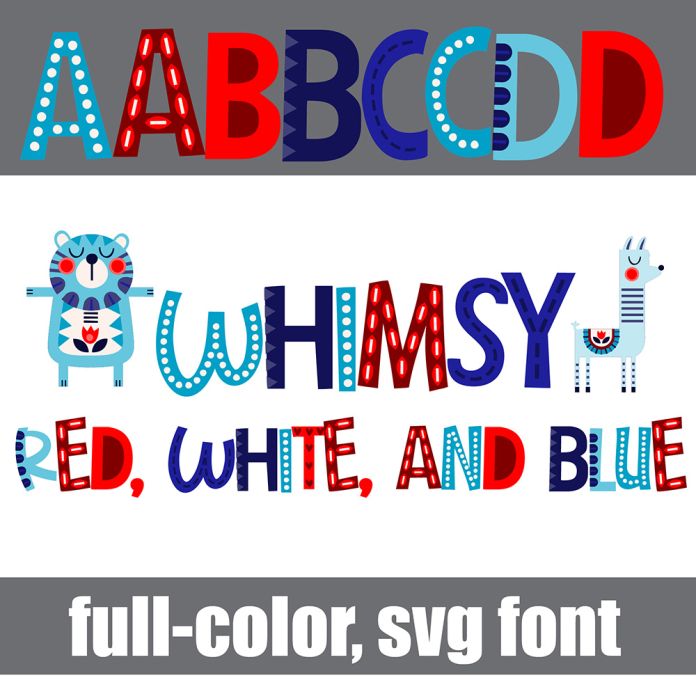
This full-color font features a whimsical font in a patriotic color palette. Access the animals by typing curly and rectangle brackets. There is an alt case w/ additional colors you can access through your system or Silhouette's glyph map. This font works best for titles, displays, posters and more. Please note color fonts will show as black in non compatible programs. This font type is compatible with Silhouette Studio.